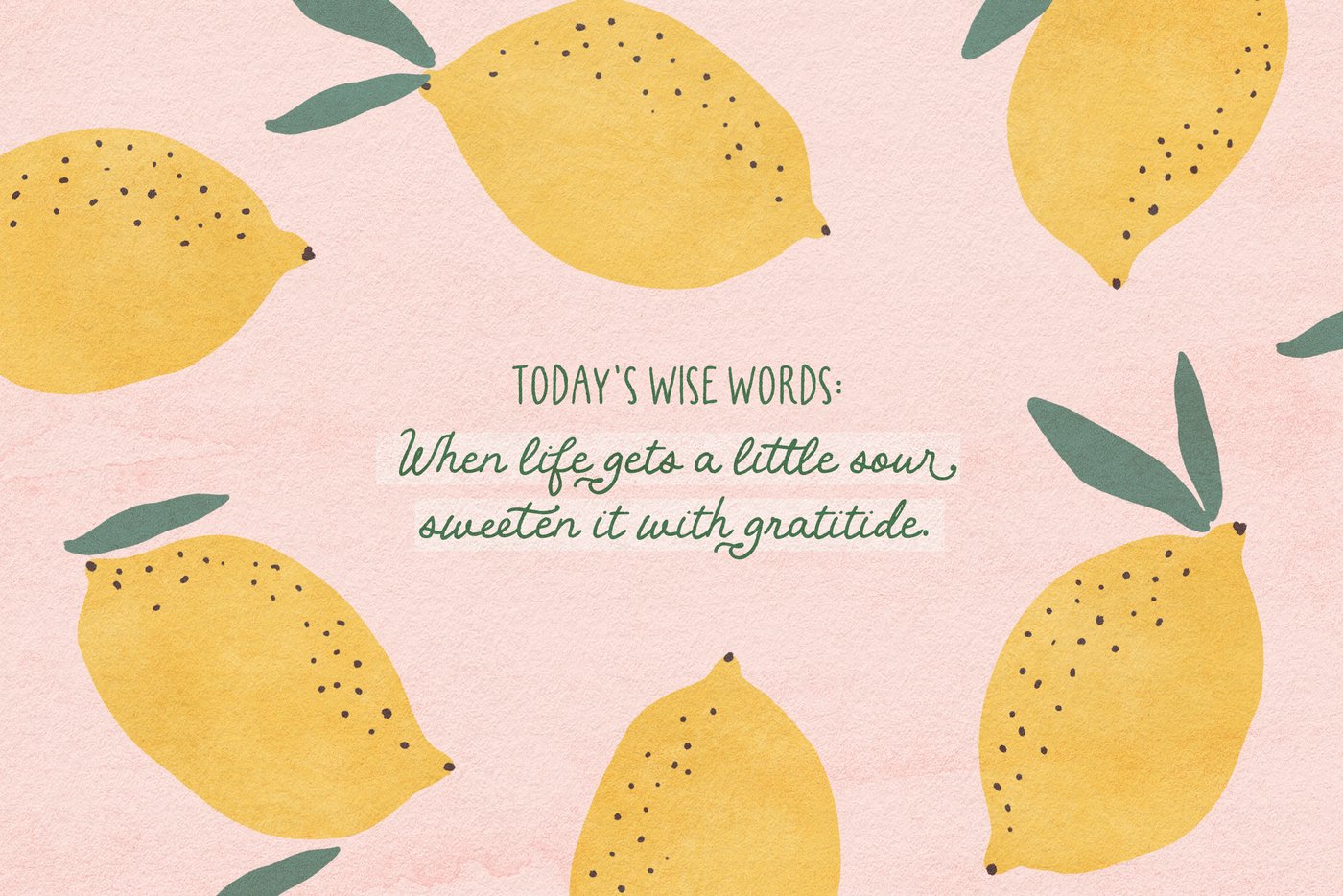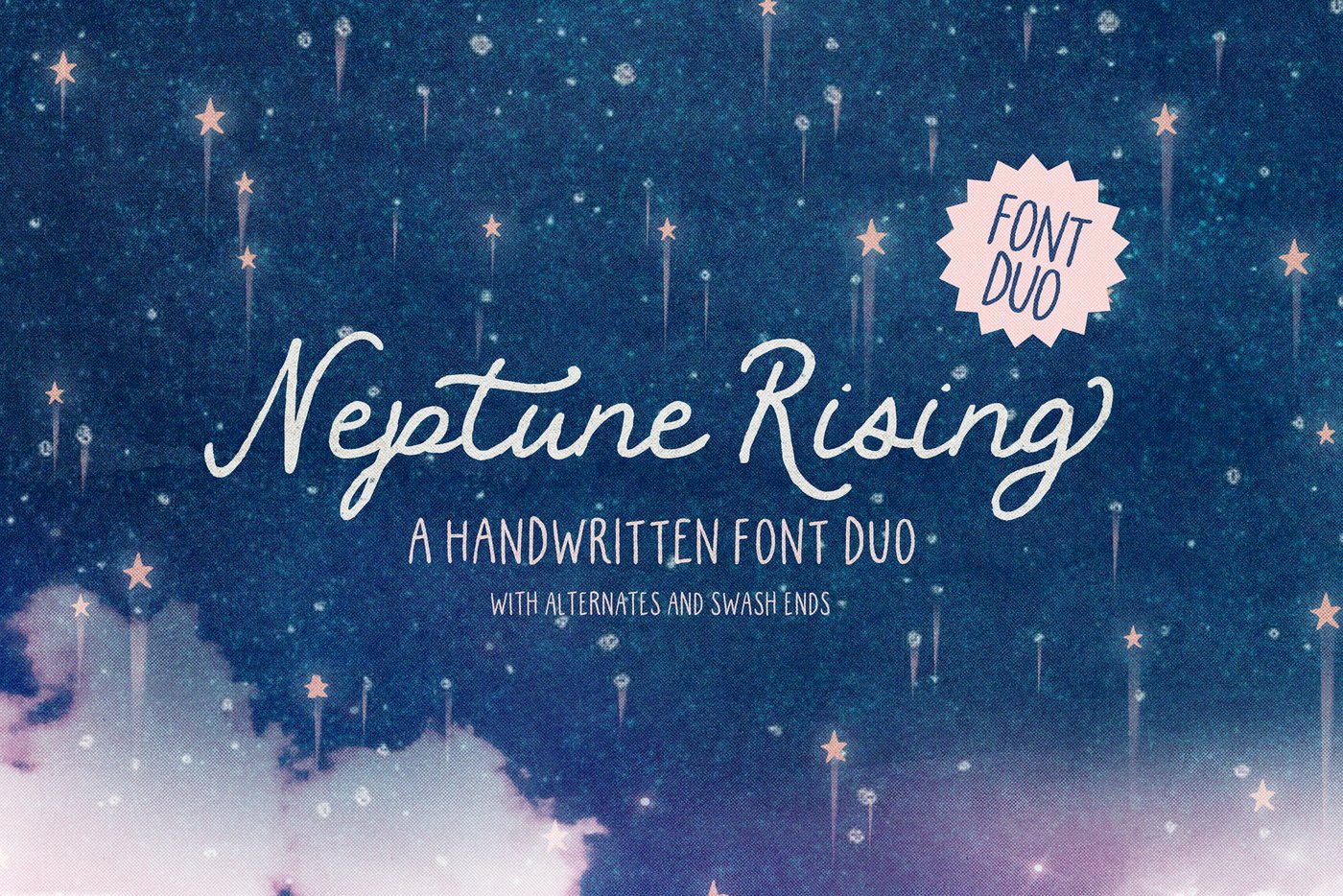
Neptune Rising Font Duo
Finally - the long-awaited Neptune Rising Font Duo:)  A charming hand-lettered script , paired with a sweet all caps - a match made in heaven, or on Neptune perhaps :)
The script has built-in Opentype features with stylish swash end letters and alternates - you need Opentype capable software to access them.
The All caps pairing - has differing upper and lowercase letters.
Perfect for greeting cards, illustrated artwork, childrens books, and any design project/brand that needs a sweet, casual feel.